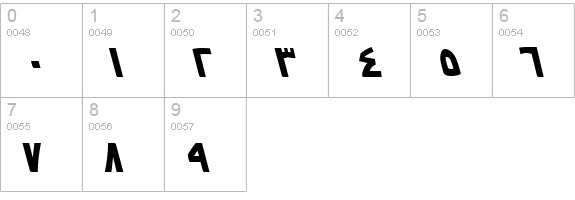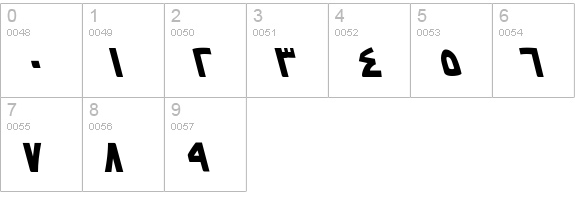
B Nasim Bold Font Details
B Nasim Bold is a strong, high-contrast variant in the B typeface family \xE2\x80\x94 well suited to headlines, attention-grabbing titles, and strong calls-to-action.
B Nasim Bold is a striking and versatile font that exudes power and confidence. With its bold and impactful letterforms, this font is perfect for making a statement in your designs. Whether you are creating a poster, logo, or website, B Nasim Bold will demand attention and leave a lasting impression on your audience. The clean lines and sharp angles of B Nasim Bold give it a modern and stylish appearance, making it ideal for a wide range of projects. Its bold weight ensures that your text will stand out and be easily read, while its distinctive design adds a touch of personality to your work. Best of all, B Nasim Bold is available for free download at FontsMarket.com, allowing you to access this high-quality font without breaking the bank. Don't miss out on the opportunity to enhance your designs with the bold and impactful B Nasim Bold font today!